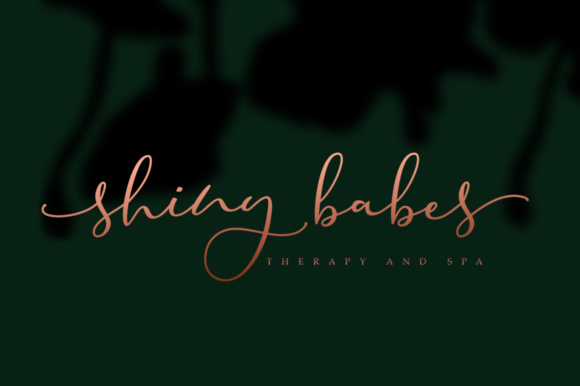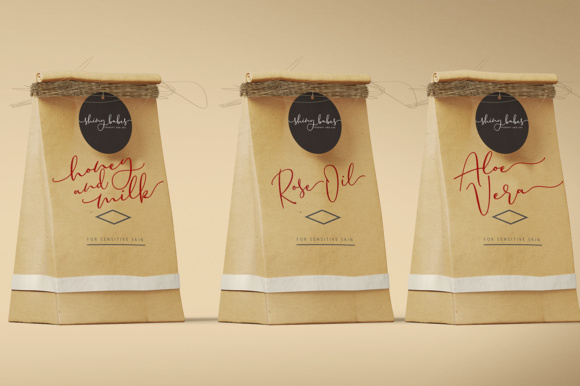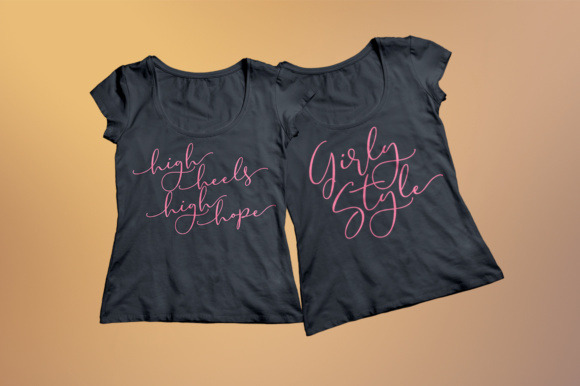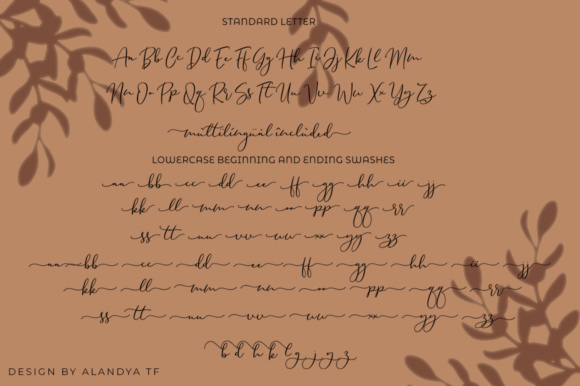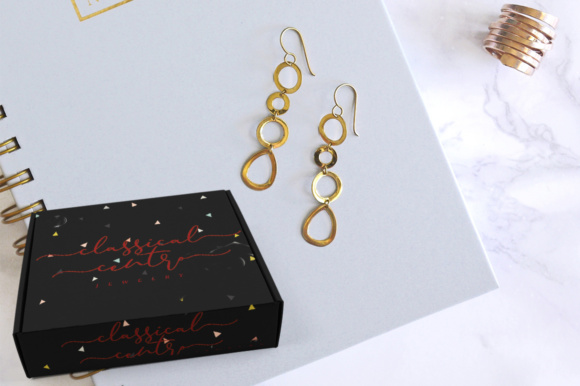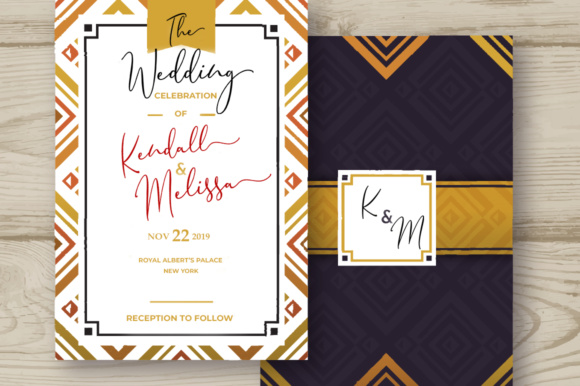
Family Time Font
About Family Time Font
The Family Time is a seductive font that is made with a touch of elegance. It’s a beautiful combination of a script and a narrow modern serif. It has a feminine, classic style, while still maintaining a friendly feel. It’s perfect for creating an original and functional design.